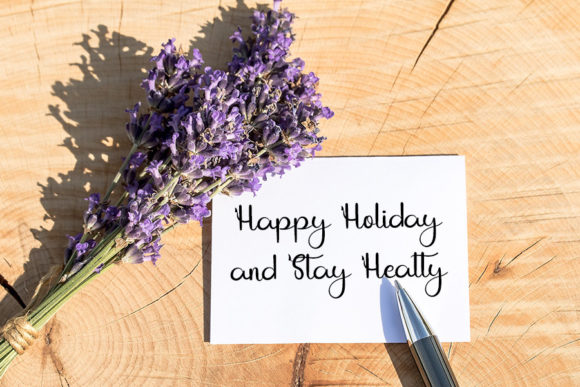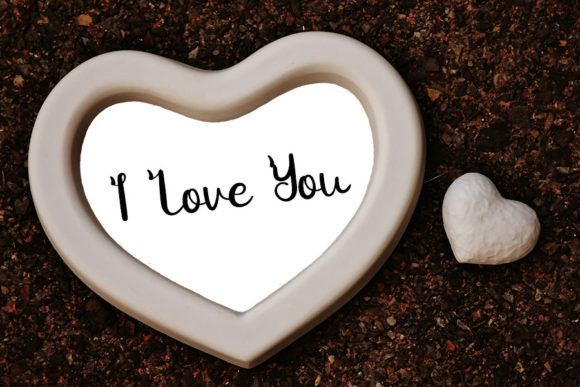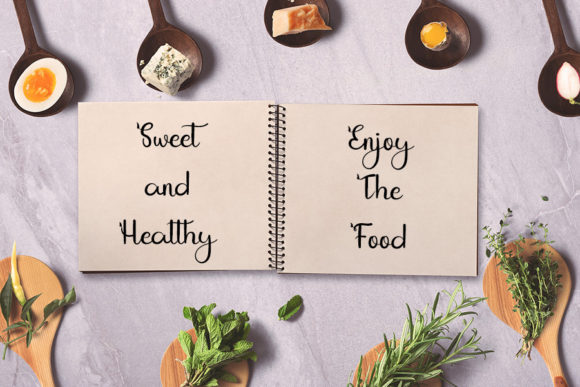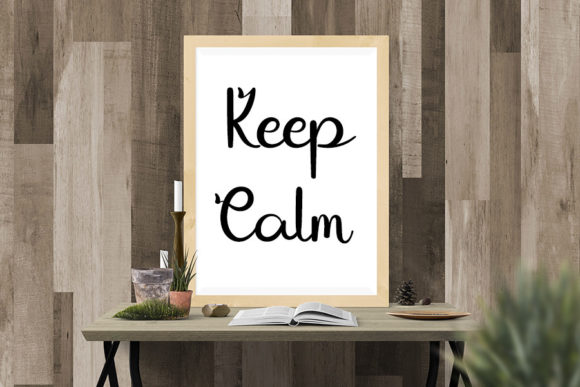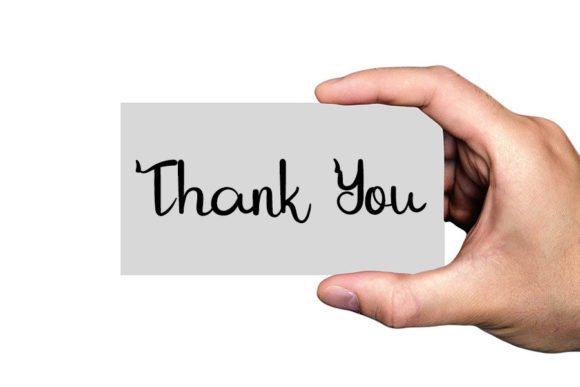
Introducing Angelina Font: Elevate Your Designs with Timeless Elegance
Are you on the hunt for a font that exudes sophistication, style, and a touch of classic charm? Look no further than Angelina Font, a stunning handwritten typeface that is sure to elevate your designs to new heights. Inspired by the beauty of timeless classic calligraphy, Angelina Font brings a contemporary atmosphere to the table, making it perfect for designers and crafters looking to add a touch of elegance to their projects.
The Perfect Balance: Not Too Thin, Not Too Thick
One of the standout features of Angelina Font is its impeccable form. The designers have struck the perfect balance between thickness and thinness, creating a font that is neither too bold nor too delicate. This balance makes Angelina Font incredibly versatile, allowing it to be used in a wide range of applications, from elegant wedding invitations to stylish branding and packaging.
Balanced and Varied: The Key to Timeless Design
Angelina Font boasts a beautiful balance of thick and thin strokes, which gives it a sense of movement and fluidity. The varied letterforms add a touch of whimsy and personality to the font, making it perfect for designers who want to add a human touch to their work. Whether you’re creating a logo, a brochure, or a social media graphic, Angelina Font is sure to bring a level of sophistication and style that will set your design apart from the rest.
Contemporary Atmosphere Meets Classic Charm
Angelina Font is a masterful blend of old and new. The font’s classic calligraphy inspiration gives it a timeless quality that will never go out of style, while its contemporary atmosphere ensures that it feels fresh and modern. This unique combination makes Angelina Font the perfect choice for designers who want to create work that feels both nostalgic and cutting-edge.
Enhance the Beauty of Your Projects
With Angelina Font, you can add a touch of elegance and sophistication to any project. The font’s beautiful letterforms and flowing lines make it perfect for a wide range of applications, including:
- Branding and packaging
- Social media graphics and ads
- Logos and wordmarks
Why Choose Angelina Font?
- Unique and stylish: Angelina Font is a one-of-a-kind typeface that will add a touch of personality to your designs.
- Versatile: The font’s balanced and varied design makes it perfect for a wide range of applications.
- Timeless: Angelina Font’s classic inspiration ensures that it will never go out of style.